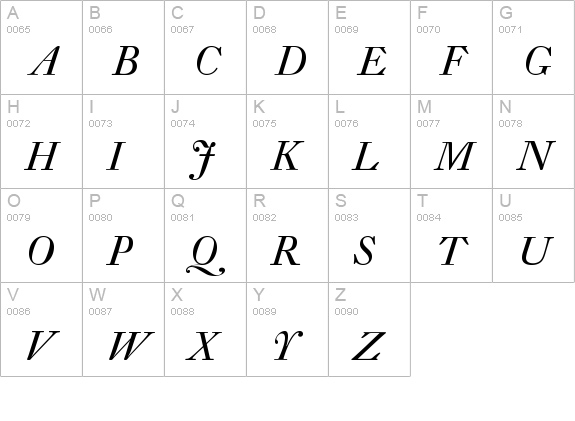
DTL Fleischmann SD Italic is a distinctive, italic variant in the DTL typeface family \xE2\x80\x94 well suited to design and typography projects.
The DTL Fleischmann SD Italic font is a modern and elegant typeface that exudes sophistication and style. With its sleek and slanted design, this font adds a touch of flair to any project or design. Perfect for adding emphasis or creating a sense of movement, the DTL Fleischmann SD Italic font is versatile and eye-catching. Best of all, this font is available for free download at FontsMarket.com. Simply visit the website to access this stunning typeface and elevate your designs with its unique charm and appeal. Don't miss out on this opportunity to enhance your projects with the DTL Fleischmann SD Italic font - download it today and unleash your creativity!